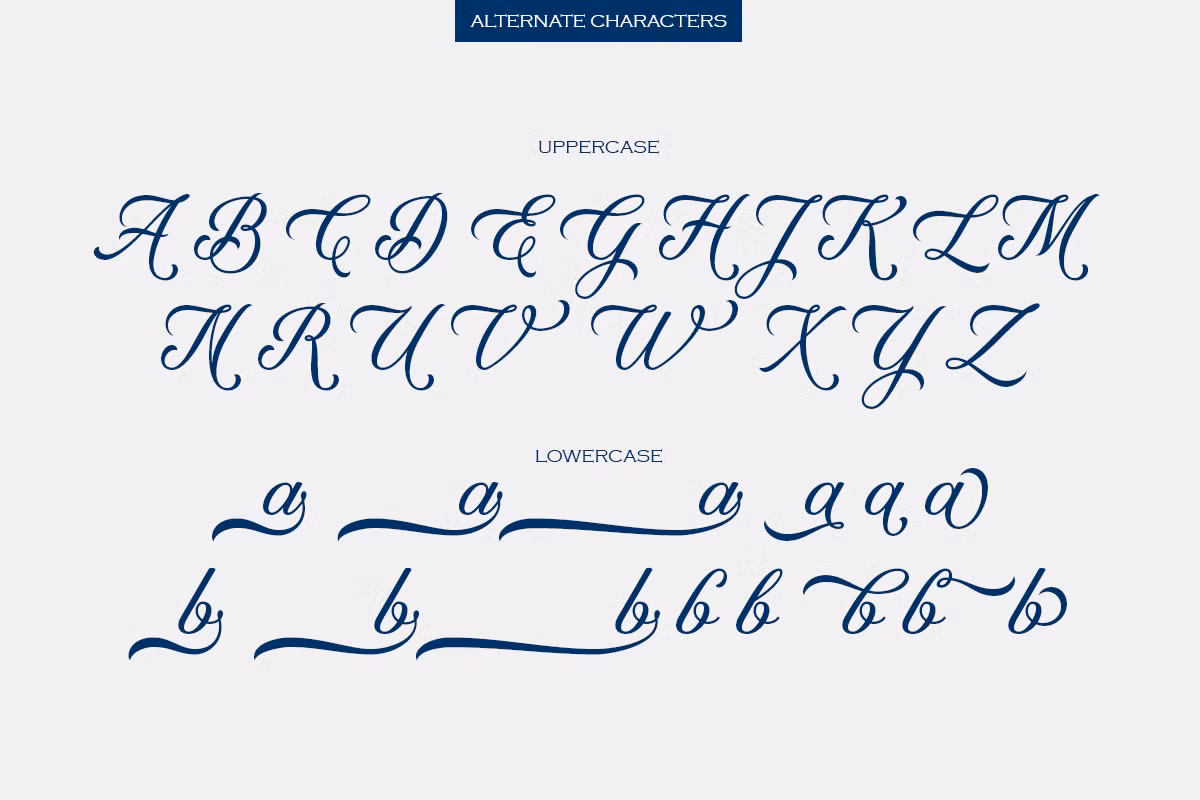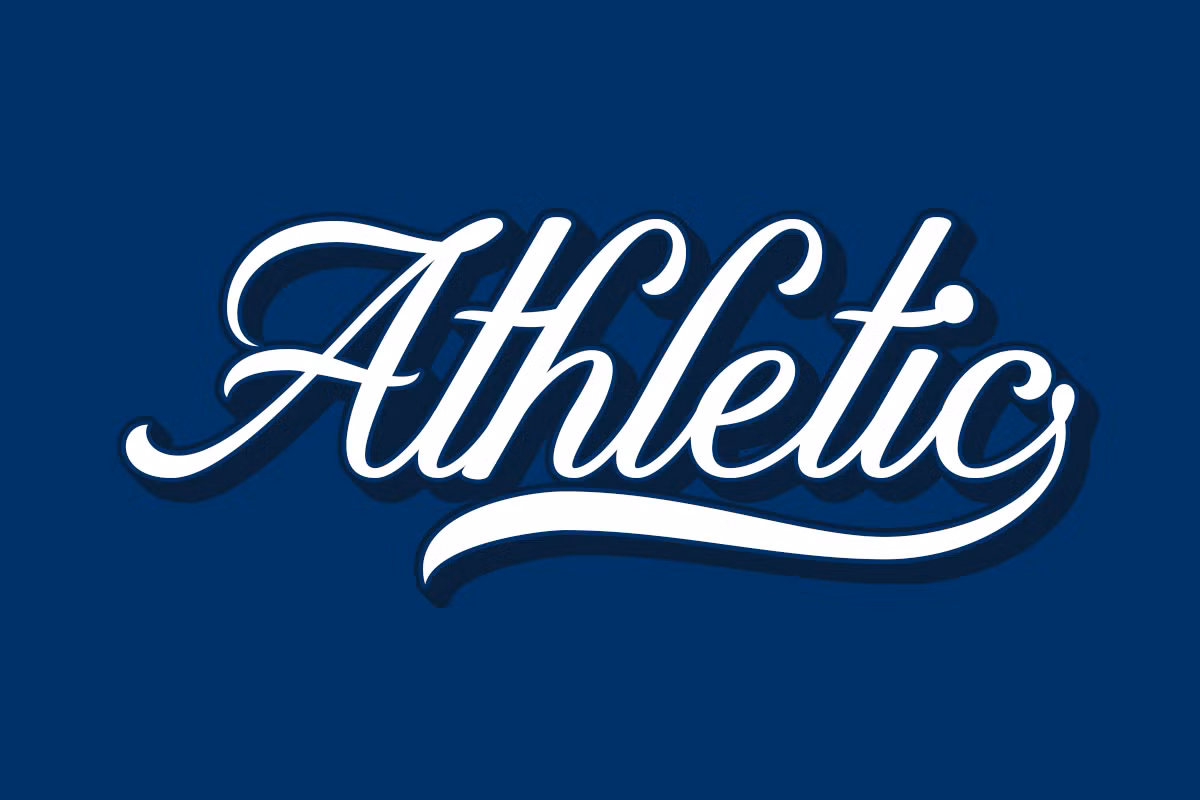
Yankees Classic | Athletics Font: Versatile Typeface with Styles and Ligatures
Introduction to Yankees Classic | Athletics Font
Meet the Yankees Classic Athletics Font, a great all-around typeface that works well for lots of different design projects. It’s a good choice because it looks nice and is also very useful. This font has everything you need, including uppercase and lowercase letters, numbers, punctuation marks, and lots of other styling options. That means you can use it to create all sorts of things, from simple texts to more complicated designs.
The Yankees Classic Athletics Font is a good addition to any designer’s toolkit, and its classic style makes it a great choice for anyone looking for a timeless look. Whether you’re working on a big project or just need a font for everyday use, this one is definitely worth considering. It’s easy to use and looks good in lots of different contexts, which makes it a great option for designers who want a font that’s both stylish and practical.
Design Style of Yankees Classic Font
The Yankees Classic Font is characterized by its clean lines and modern aesthetic, making it suitable for various applications. Its design draws inspiration from classic sports lettering, which provides a nostalgic yet contemporary feel. The font is crafted to maintain legibility while still offering unique stylistic options that can elevate your designs.
The Yankees Classic Font is really versatile, which makes it super useful. It comes with extra characters and stylistic sets, so you can change up the look of your text to fit the vibe of your project. This is great whether you’re making a logo, creating ads, or just working on something for fun.
Character Sets and Features
The Yankees Classic Font is really versatile and has a wide range of characters. You get uppercase and lowercase letters, numbers, and lots of different punctuation marks. This means you can use it to create simple text designs or more complicated layouts with lots of detail. It’s great for designers who want to have plenty of options to choose from.
The font is perfect for creating everything from basic text to intricate typographic designs, making it a great choice for anyone looking for a classic font with a lot of possibilities. The Yankees Classic Font has a really cool feature – its ligatures. So, what are ligatures? They’re special characters that bring two or more letters together to make one glyph, which can really improve how your text looks.
Use Cases for Yankees Classic Font
The Yankees Classic Font is incredibly versatile, making it suitable for a wide range of applications. Here are some popular use cases:
- Branding: The font’s classic sports-inspired design makes it an excellent choice for logos and branding materials for sports teams, fitness brands, or any business looking to convey a sense of tradition and strength.
- Promotional Materials: Use the Yankees Classic Font for flyers, posters, and advertisements. Its easy-to-read characters ensure that your message will be clear and impactful.
- Social Media Graphics: The font’s stylish appearance is perfect for creating eye-catching social media posts that grab attention and engage your audience.
- Merchandise: Whether it’s t-shirts, caps, or other merchandise, the Yankees Classic Font can be used to create memorable designs that resonate with fans and customers alike.
Pairing Suggestions for Yankees Classic Font
To maximize the impact of your designs, consider pairing the Yankees Classic Font with complementary typefaces. Here are a few suggestions:
- Sans-serif Fonts: Pairing Yankees Classic with a clean sans-serif font like Montserrat or Open Sans can create a modern look that balances the traditional feel of the classic font.
- Serif Fonts: Using a classic serif font, such as Merriweather or Playfair Display, in combination with the timeless Yankees Classic font, can bring a level of refinement and poise to your design work.
- Display Fonts: For more creative projects, consider pairing it with display fonts that have a playful or artistic flair, such as Pacifico or Lobster, to create dynamic visuals.
The Yankees Classic | Athletics Font is a powerful and versatile typeface that brings together classic design elements with modern functionality. With its extensive character set, ligatures, and various styles, this font is well-suited for a wide range of applications. Whether you are designing for branding, promotional materials, or merchandise, the Yankees Classic Font will help you achieve stunning results. Don’t hesitate to explore its many features and incorporate it into your next creative project!